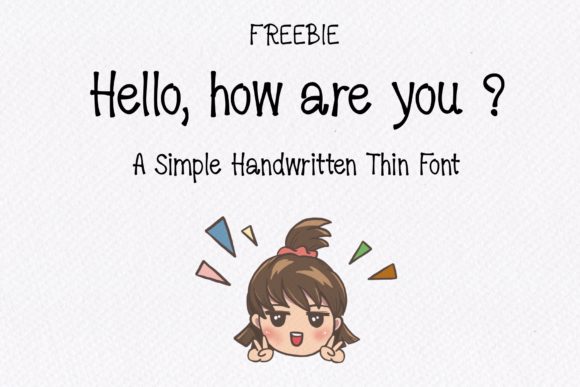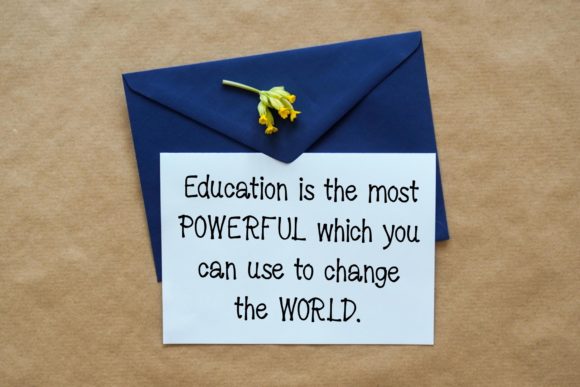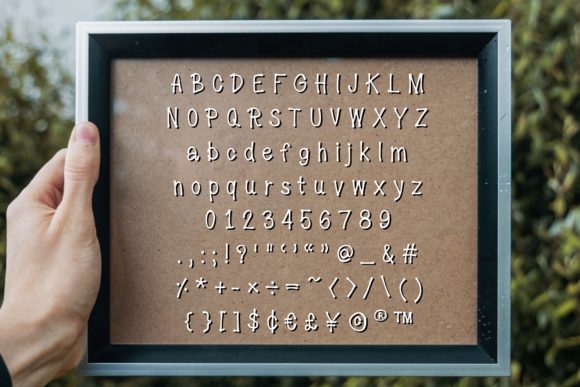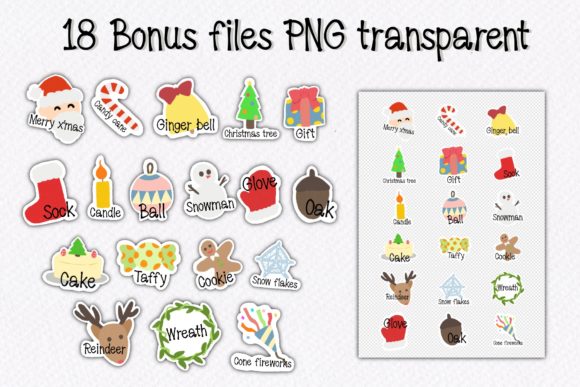
About Hello, How Are You? Font
Hello, How Are You? is a thin and dainty handwritten font. You can use on book covers, logos, cards and any design that you wish to develop.